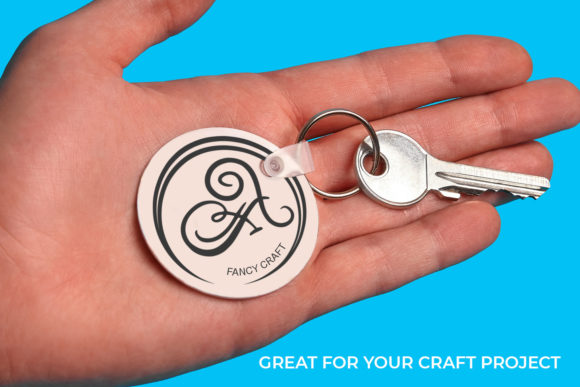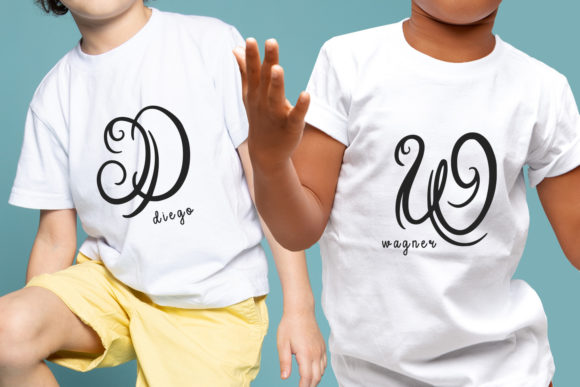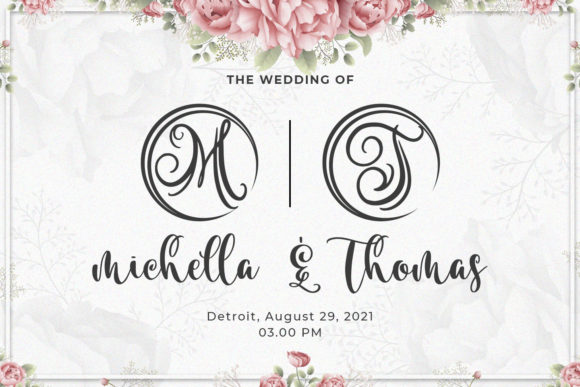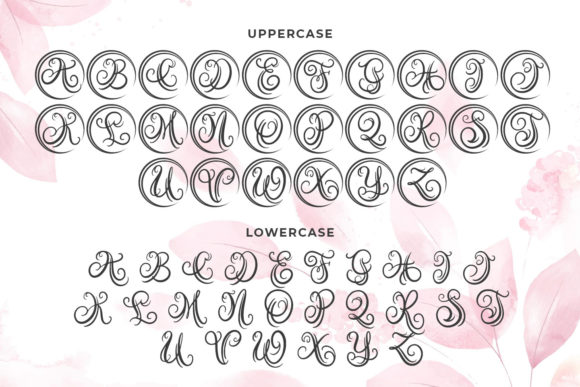
Austy Monogram Font: Add a Touch of Whimsy to Your Designs
Do you remember that moment when you were brainstorming ideas for your wedding invitation and suddenly, a spark of creativity hit you? The way you envisioned the perfect blend of elegance and romance, with delicate lettering and intricate details, left you breathless. If you’re a designer looking to recreate that magical feeling in your work, look no further than the Austy Monogram Font.
This dainty and unique decorative font is perfect for adding a touch of whimsy to your love letters, wedding invitations, or any design project that requires a romantic and lovely touch. With Austy Monogram Font, you can elevate your designs from ordinary to extraordinary, making it a valuable addition to any designer’s toolkit.
- Unique Characteristics: The font features a unique monogram design, with intricate details and flourishes that set it apart from other fonts.
Austy Monogram Font Review
I recently had the chance to work with the Austy Monogram Font, and I have to say, it’s a unique and stylish choice for any design project. ✨ Here are some things that work well:
- Customizability: The font offers a range of customization options, including different sizes and color schemes, which makes it perfect for creating a consistent brand identity.
- Monogram Style: The font’s monogram style is perfect for adding a touch of elegance and sophistication to any design.
- Compatibility: The font is compatible with most design software, making it easy to integrate into your workflow.
- Limited Character Set: The font’s character set is limited, which may not be suitable for designs that require a wide range of characters.
- Not Ideal for Small Text: The font’s design may not be ideal for small text, as it can be difficult to read at smaller sizes.
- Not Suitable for Informal Designs: The font’s formal style may not be suitable for informal designs, such as social media posts or blog articles.
Overall, I think the Austy Monogram Font is a great choice for designers who want to add a touch of elegance and sophistication to their designs. While it has some limitations, its customizability and monogram style make it a versatile and stylish option.
Tips for Getting the Most Out of Austy Monogram Font
Here are some tips for getting the most out of Austy Monogram Font:
- Use it to create custom monograms or logos.
- Pair it with other fonts to create a unique and stylish design.
- Experiment with different font sizes and colors to add visual interest.
Common Use Cases for Austy Monogram Font
Austy Monogram Font is commonly used for:
- Wedding invitations and decorations.
- Business logos and branding.
Alternatives to Austy Monogram Font for Designers
The Great Vibes Font is a modern script font designed to give a relaxed and casual feel. It’s ideal for use in social media graphics, advertising, and other digital media where a friendly tone is desired. Compared to Austy Monogram Font, Great Vibes Font is more casual and relaxed, whereas Austy Monogram Font has a more elegant and sophisticated feel.
The Carolyna Pro Font is a high-end script font designed for luxury brands and high-end advertising. It’s perfect for use in fashion, beauty, and luxury goods branding. Compared to Austy Monogram Font, Carolyna Pro Font is more elegant and sophisticated, with a focus on high-end luxury branding.
Austy Monogram Font is designed to be versatile and can be paired with a variety of fonts to create unique and stylish combinations. Some suggested pairing options include clean sans-serif fonts like Open Sans or Lato, or elegant script fonts like Pacifico or Great Vibes.